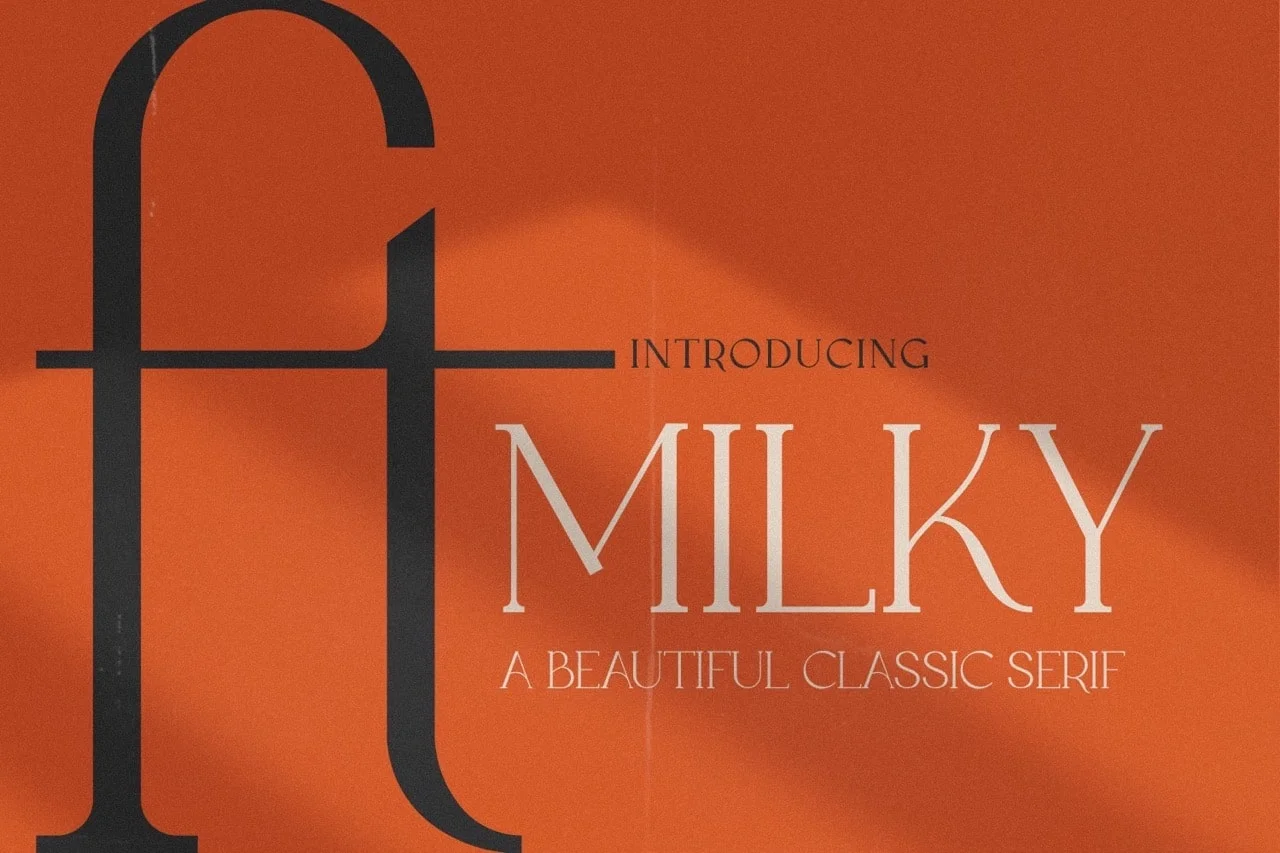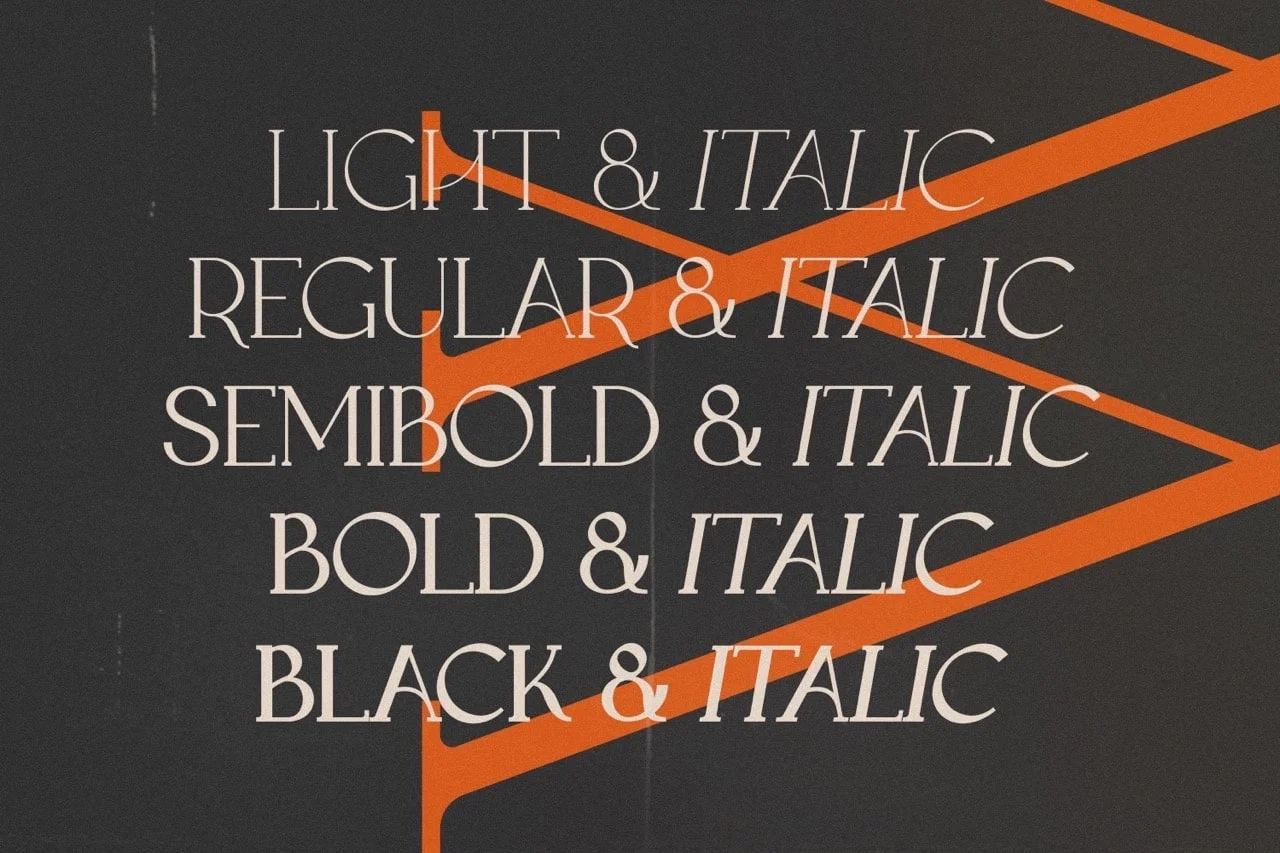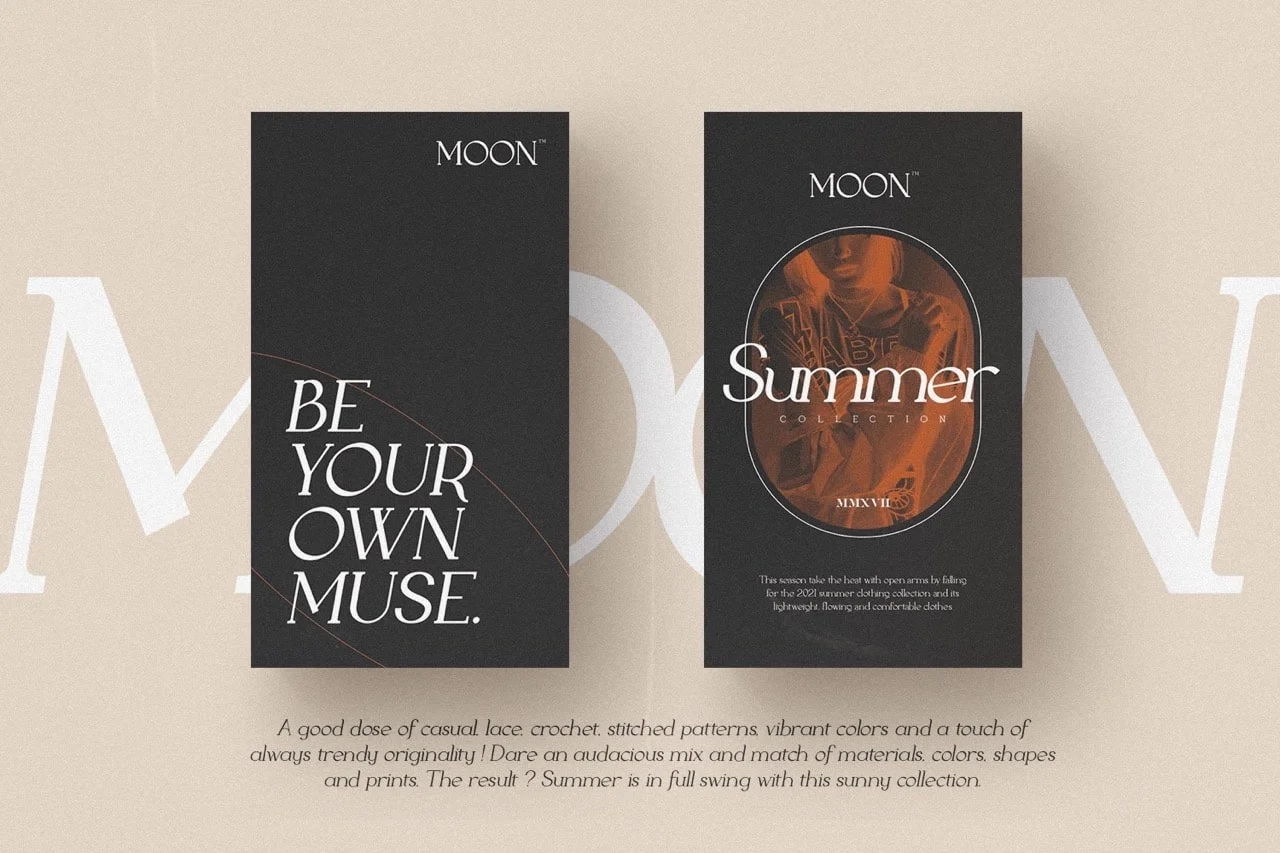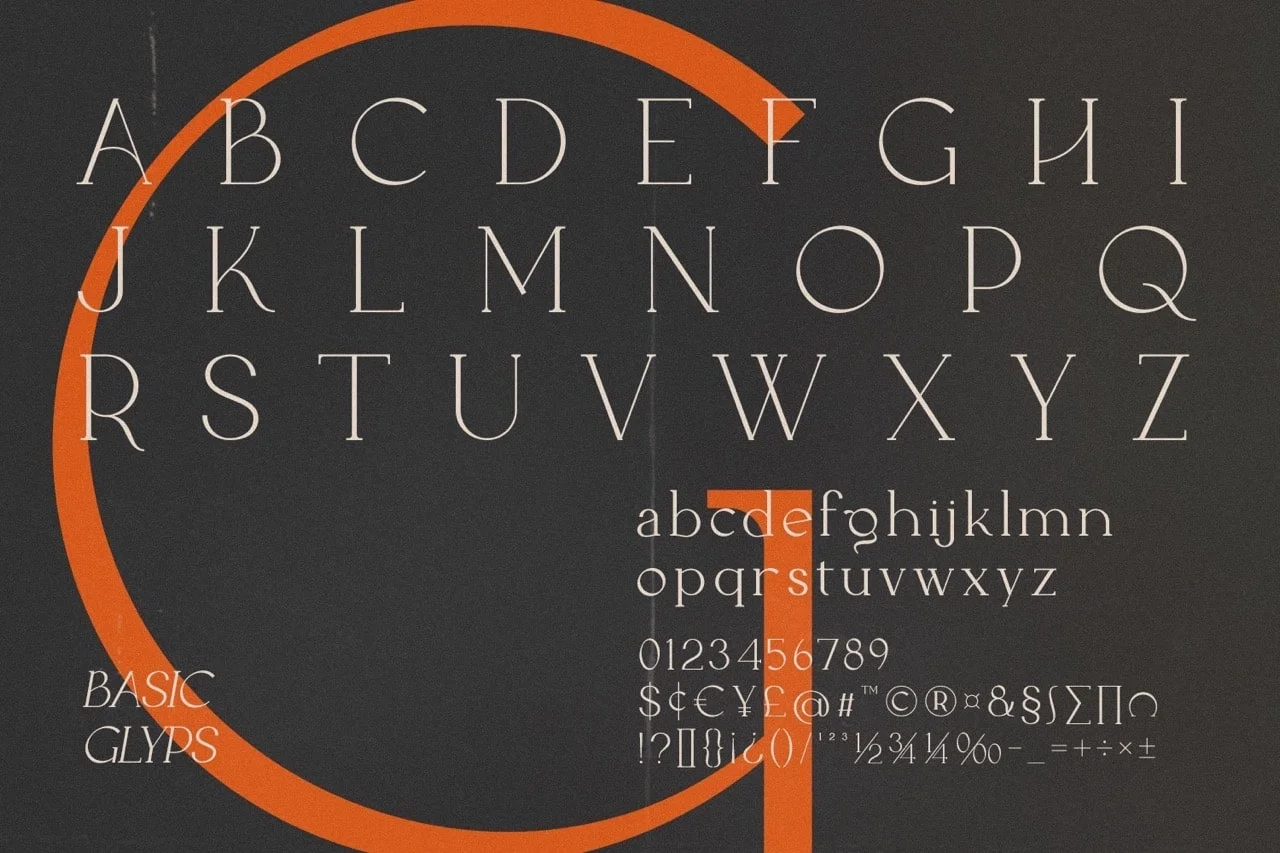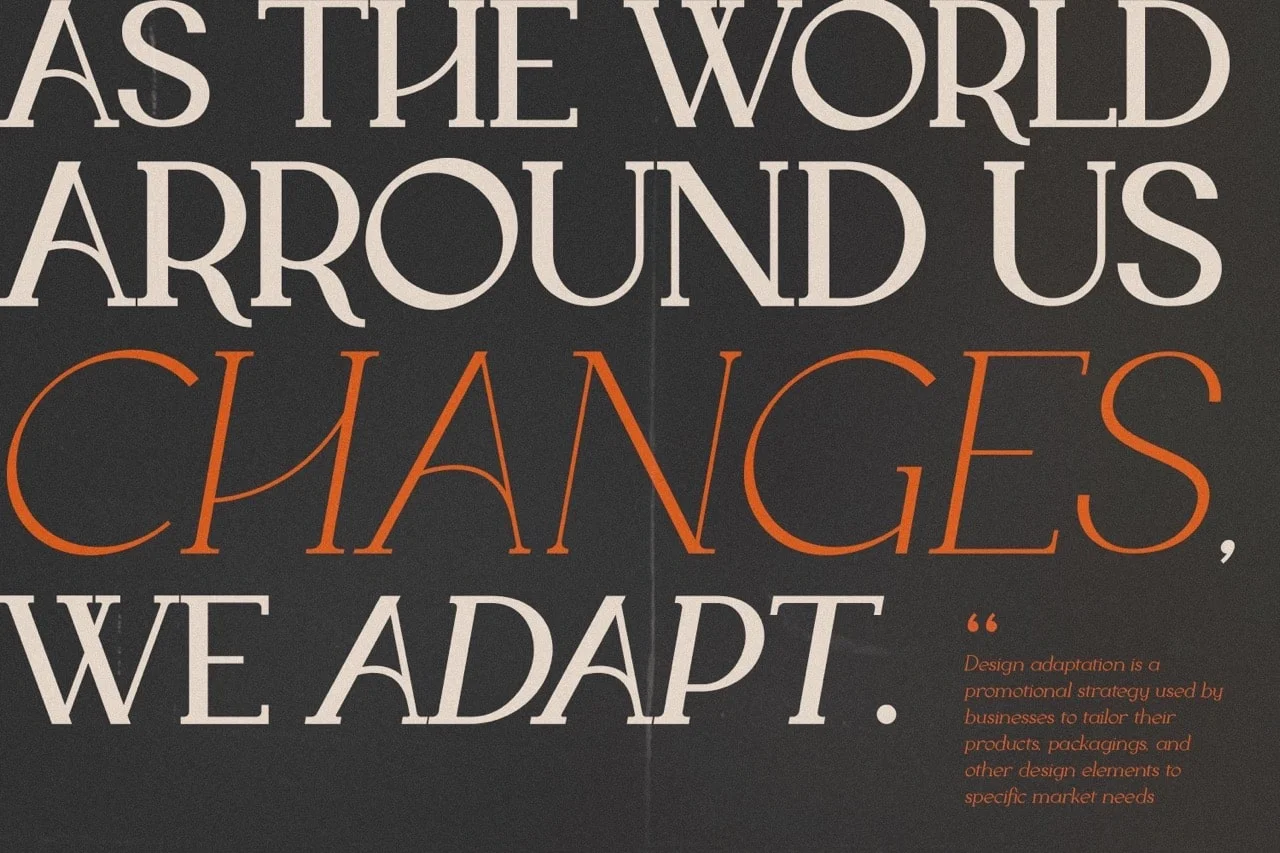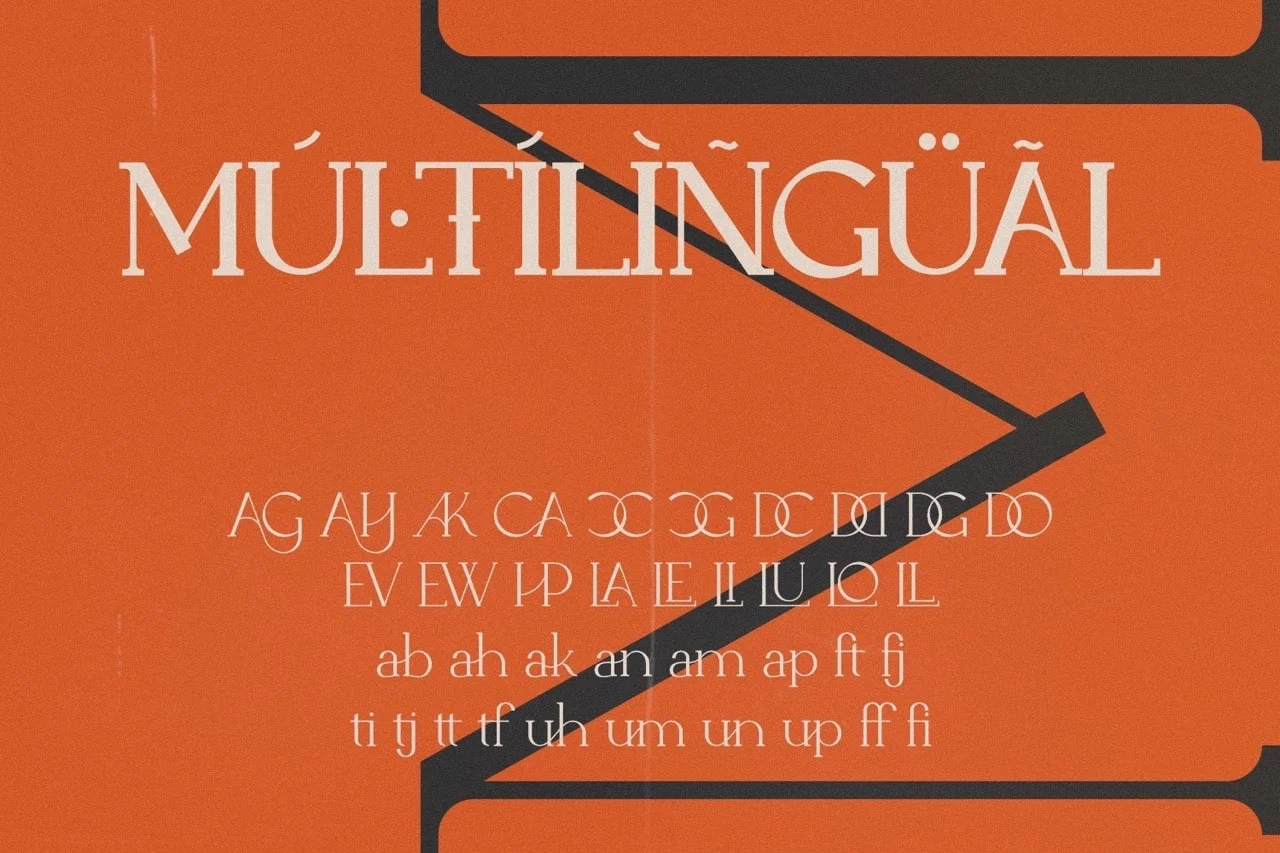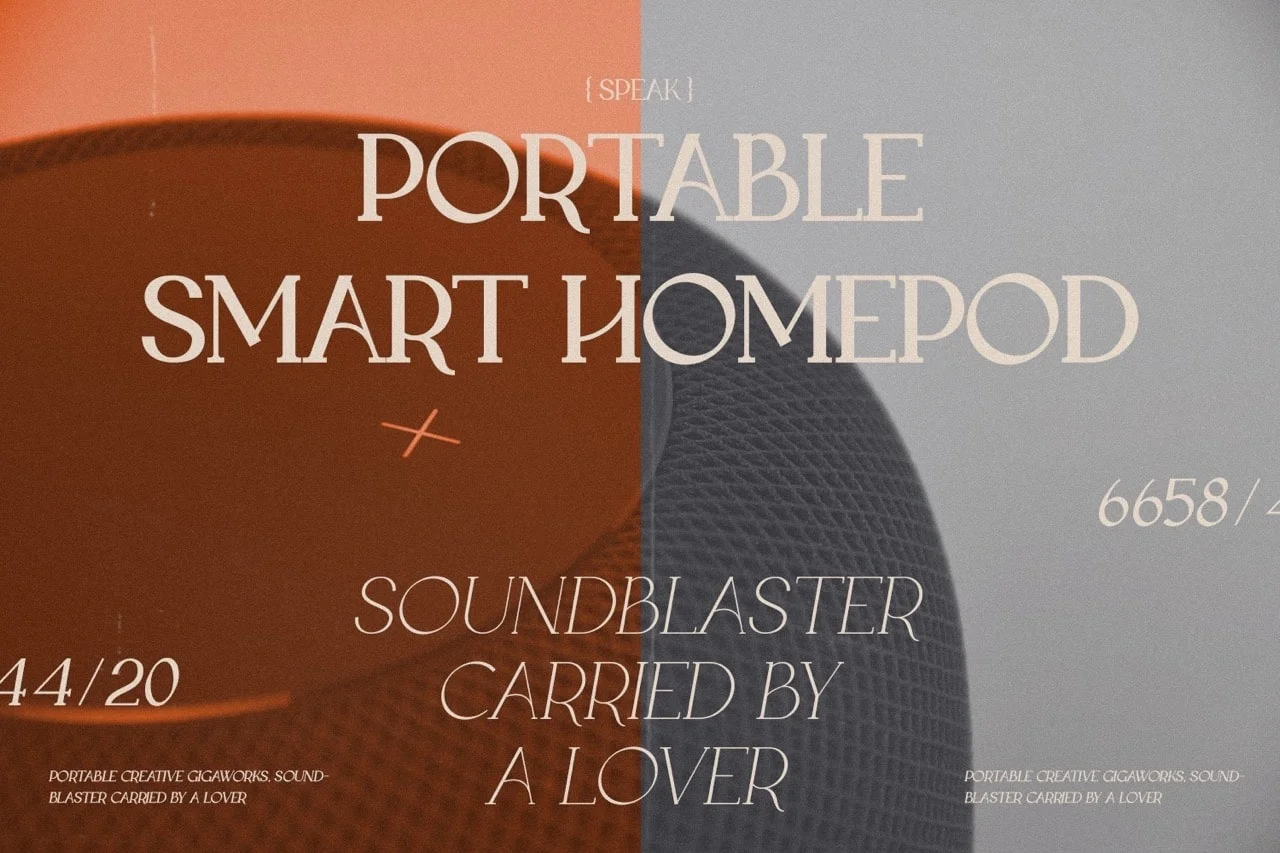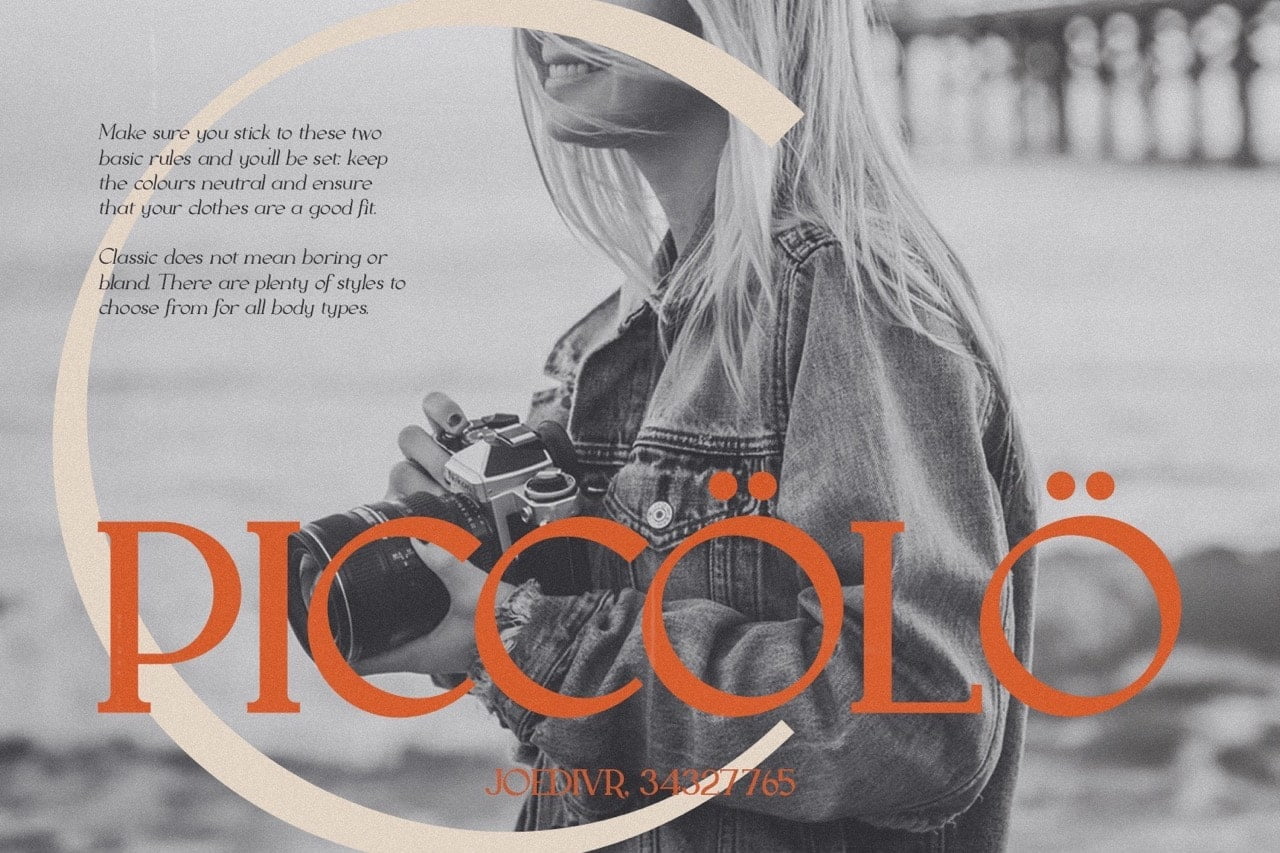
The FTMilky Serif is a lovely classic serif font family. The mix of modern and vintage elements results in an elegant design. The different weights give you a variety of options for determining the best typographic color for your project.
• 5 Weights
• 2 Styles (Regular and Italic)
• Basic Latin A-Z and a-z
• Numerals & Punctuation
• Stylistic Ligatures and Alternate Glyphs
• Multilingual Support for ä ö ü Ä Ö Ü …
FTMilky Serif